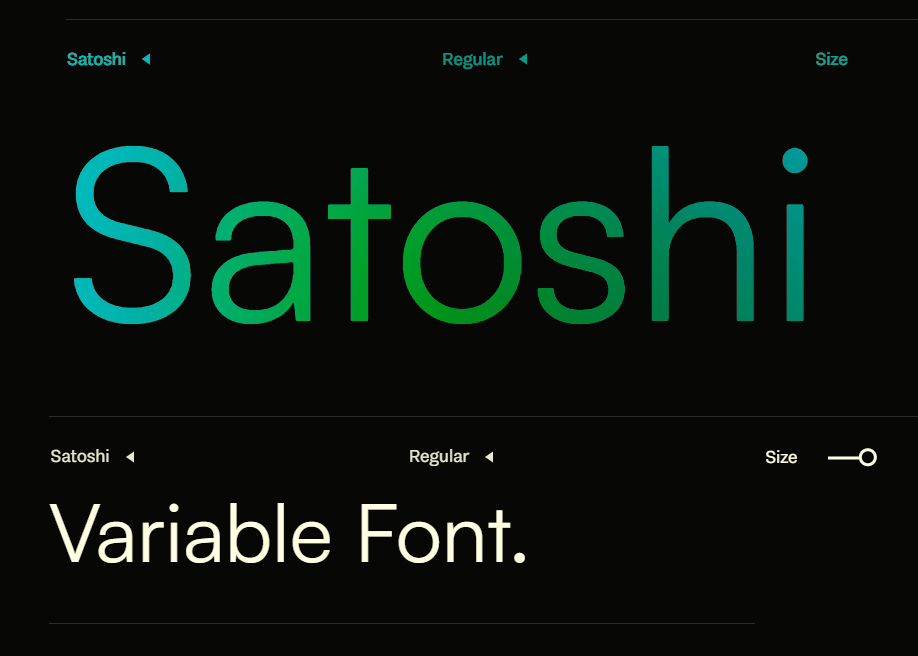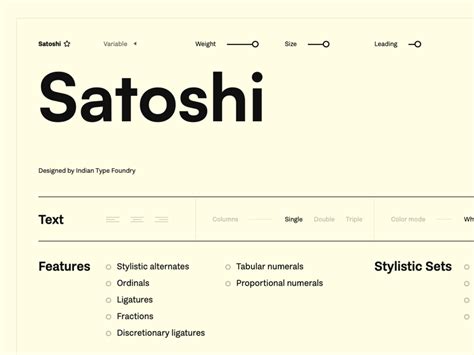
Satoshi Font Download - Satoshi sans serif font this font is a swiss style modernist sans serif type family characterized by the play between elegant. This font is a swiss style modernist sans serif type family characterized by the play between elegant rounded shapes and sharp angular.
Satoshi sans serif font this font is a swiss style modernist sans serif type family characterized by the play between elegant. This font is a swiss style modernist sans serif type family characterized by the play between elegant rounded shapes and sharp angular.
This font is a swiss style modernist sans serif type family characterized by the play between elegant rounded shapes and sharp angular. Satoshi sans serif font this font is a swiss style modernist sans serif type family characterized by the play between elegant.
Satoshi Sans Serif Font This Font Is A Swiss Style Modernist Sans Serif Type Family Characterized By The Play Between Elegant.
This font is a swiss style modernist sans serif type family characterized by the play between elegant rounded shapes and sharp angular.